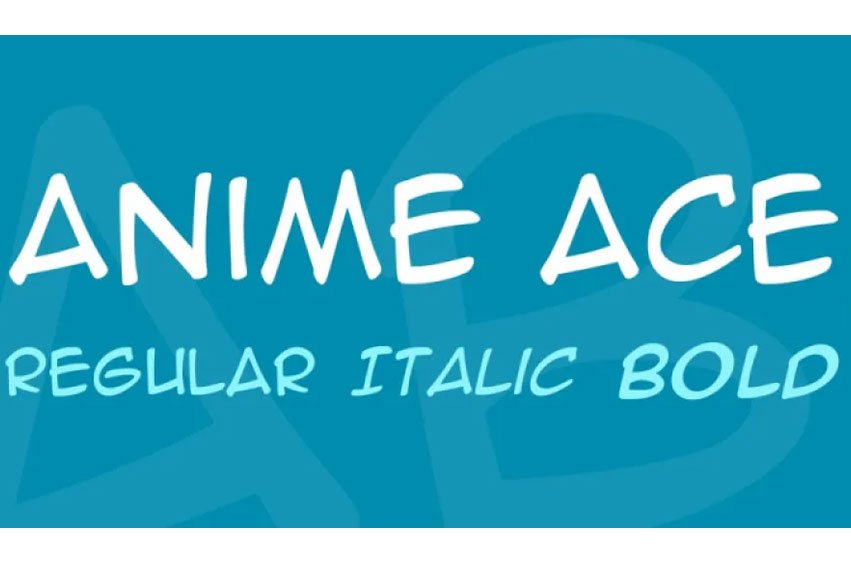
Anime Ace Font is a kind of free software which is created for using in comic book making for independent and non-commercial projects only.
Being a part of Blambot’s Dialogue Collection, this font is meant to be the main font for your characters’ speech bubbles!